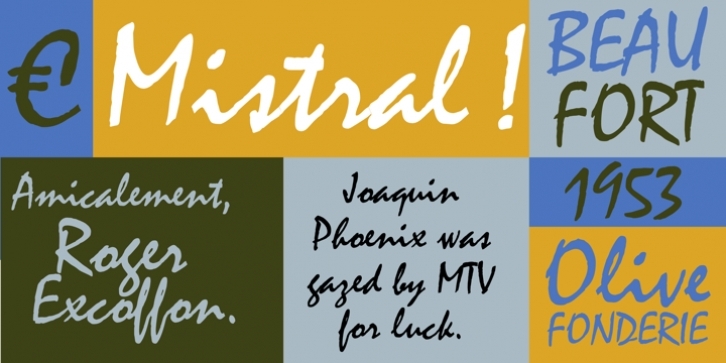
Mistral was designed by Roger Excoffon and published by Adobe. Mistral contains 1 style.
Named for the strong, cold winds of southern France, Mistral was designed by Roger Excoffon for the Olive foundry in 1953.
This unique brush script is based on the designer's handwriting, and is a true script in that the letters are designed to connect.
Mistral is beautifully designed and versatile, cleverly meeting the demands of headline and display work.